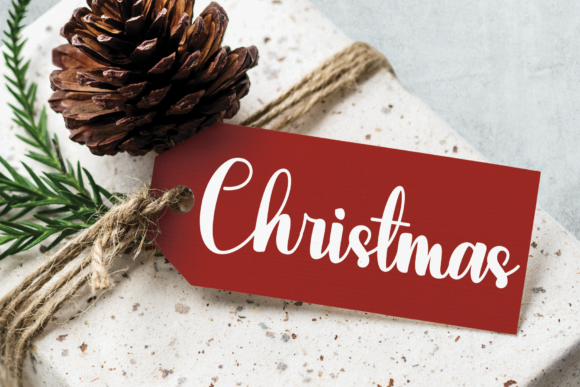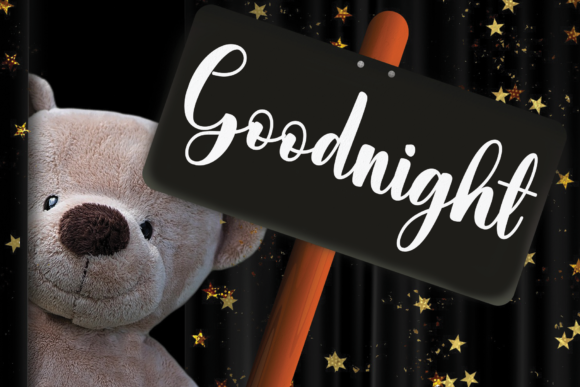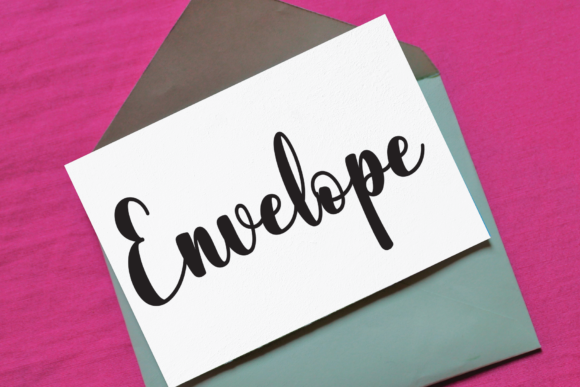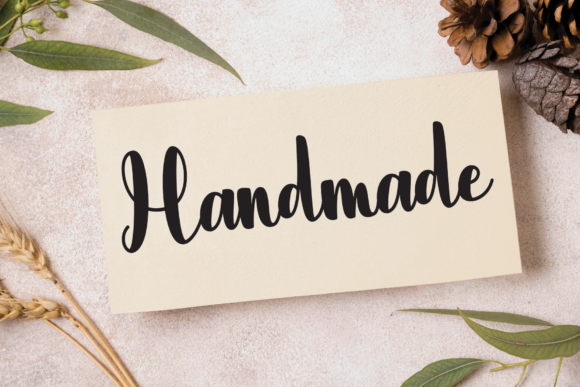
Introducing Hallimun Font: Elevate Your Designs with Elegance and Sophistication
Are you a designer or crafter looking for a font that can add a touch of elegance and sophistication to your projects? Look no further than Hallimun Font, a beautiful and flowing handwritten font that is perfect for a wide range of applications. In this article, we’ll explore the features and benefits of Hallimun Font, and show you how to use it to take your designs to the next level.
What is Hallimun Font?
Hallimun Font is a stunning handwritten font that is designed to add a touch of elegance and sophistication to any project. Its flowing lines and curves make it perfect for creating beautiful and eye-catching designs that are sure to impress. Whether you’re working on a wedding invitation, social media post, or product packaging, Hallimun Font is the perfect choice.
Key Features of Hallimun Font
- Beautiful and flowing handwritten design: Hallimun Font features a stunning handwritten design that is both elegant and sophisticated.
- Perfect for a wide range of applications: From wedding invitations to product packaging, Hallimun Font is versatile enough to be used for any project that requires impressive typography.
- Easily customizable: Hallimun Font is easy to customize, making it perfect for designers and crafters who want to add their own personal touch to their projects.
Uses for Hallimun Font
Hallimun Font is a versatile font that can be used for a wide range of applications, including:
- Wall hangings: Create beautiful wall hangings with Hallimun Font that are perfect for adding a touch of elegance to any room.
- Wedding invitations: Make your wedding invitations truly special with Hallimun Font, which is perfect for creating beautiful and elegant designs.
- Social media posts: Add a touch of sophistication to your social media posts with Hallimun Font, which is perfect for creating eye-catching graphics and logos.
- Logos: Create stunning logos with Hallimun Font that are perfect for businesses and brands looking to add a touch of elegance to their branding.
- Advertising: Use Hallimun Font to create eye-catching advertisements that are sure to grab the attention of your target audience.
- Product packaging: Add a touch of sophistication to your product packaging with Hallimun Font, which is perfect for creating beautiful and elegant designs.
- Product design: Use Hallimun Font to create stunning product designs that are perfect for showcasing your products in a beautiful and elegant way.
- Labels: Create beautiful labels with Hallimun Font that are perfect for adding a touch of elegance to your products.
- Photography: Use Hallimun Font to create stunning watermarks that are perfect for protecting your photos and adding a touch of elegance to your images.
- Invitations: Create beautiful invitations with Hallimun Font that are perfect for any occasion, from weddings to birthday parties.
- Stationery: Use Hallimun Font to create stunning stationery that is perfect for adding a touch of elegance to your correspondence.
Why Choose Hallimun Font?
There are many reasons why Hallimun Font is the perfect choice for designers and crafters looking for a beautiful and elegant font. Here are just a few:
- Unique and elegant design: Hallimun Font features a unique and elegant design that is sure to add a touch of sophistication to any project.
- Versatile: Hallimun Font is versatile enough to be used for a wide range of applications, making it a great choice for designers and crafters who want a font that can be used for multiple projects.
- Easily customizable: Hallimun Font is easy to customize, making it perfect for designers and crafters who want to add their own personal touch to their projects.
In conclusion, Hallimun Font is a beautiful and flowing handwritten font that is perfect for designers and crafters looking to add a touch of elegance and sophistication to their projects. With its unique and elegant design, versatility, and ease of customization, Hallimun Font is the perfect choice for any project that requires impressive typography. So why wait? Download Hallimun Font today and start creating stunning designs that are sure to impress!